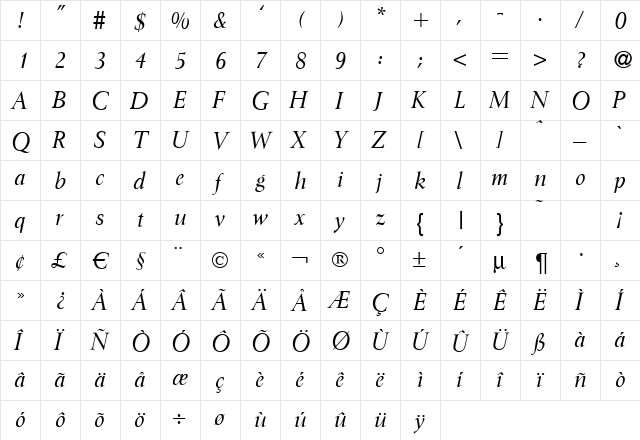
I772-Roman Italic
Design Context for I772-Roman Typeface
I772-Roman is a composed and adaptable typeface that performs quietly and consistently across a wide range of design contexts. Its italic angle brings a sense of urgency and motion to the letterforms.
Pro Tip: Try I772-Roman for annotation and caption copy alongside an upright companion — the contrast in angle creates a dynamic but ordered typographic system.